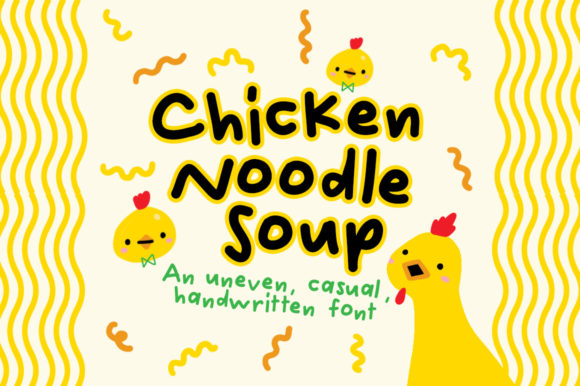
Introducing Chicken Noodle Soup font, a remarkable handwritten script creation that is taking the design world by storm. Its carefree, warm-hearted vibe invites you to delve into a world of playful elegance.
With Chicken Noodle soup, your texts will exude a sense of joy and coziness, adding a personal touch to your everyday projects. Its charming strokes and bouncy curves create a visual feast that captures the essence of the perfect handwritten letter.
Picture your social media posts and marketing materials adorned with the quirky beauty of Chicken Noodle Soup. It will elevate your brand's voice, expressing a genuine connection with your audience. Your website will come alive with a warm and welcoming ambiance, leaving a lasting impression on every visitor.
Chicken Noodle Soup is a versatile gem, suitable for a myriad of creative endeavors. Its playful nature shines through in invitations, greeting cards, and personal correspondence, adding a touch of whimsy and individuality. Unleash your creativity with logos and branding, crafting a memorable identity that reflects your brand's personality.
This font's imaginative appeal extends to the realm of digital art and crafting. Design eye-catching printables, wall art, and DIY projects that speak volumes about your unique style.
With Chicken Noodle Soup, the possibilities are endless! Grab this font today and embark on a creative journey that will leave an indelible mark on your audience. Let its charm and playful spirit ignite your imagination and transform your designs into heartwarming expressions of self-expression.